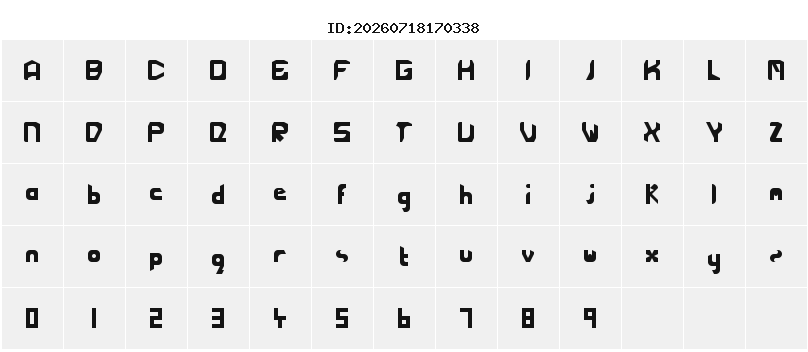
• Font Name: Cutting Edge
• Full Font Name: Cutting Edge Regular
• Designer: floor-3013
About Cutting Edge.ttf
Cutting Edge.ttf is a modern, elegant sans-serif font designed for ultimate readability and visual harmony. Perfect for branding, headlines, web design, and print materials.